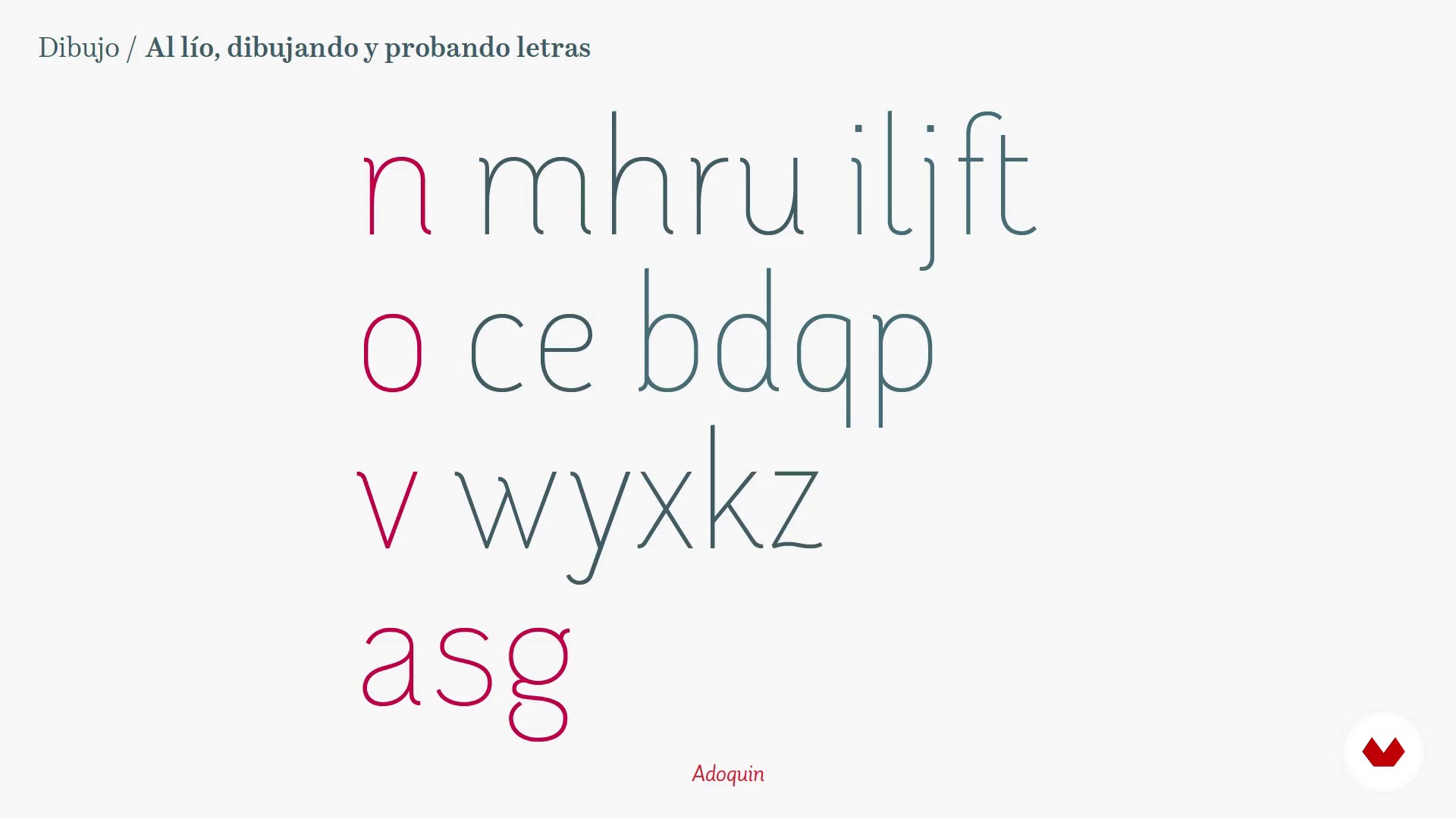
To the mess, drawing and testing letters 1
About the video: To the mess, drawing and testing letters 1
“We know how the letters are drawn, we know where to place them, we know how to reuse their forms, now we have to apply all that to create an alphabet taking advantage of the similarity between groups of letters to be sure. Prepare that will be long.”
In this video lesson Juanjo López addresses the topic: To the mess, drawing and testing letters 1, which is part of the Domestika online course: Design a Digital Font from A to Z. Learn to design a font from scratch with Glyphs, Illustrator, and OpenType functions.
“In this lesson. we will put into practice all that we have learned up until now within the unit. Our goal is to construct an alphabet by creating some letters based on existing ones and using components of certain letters to form others in the most straightforward manner. When I embark on creating a new typeface. it often stems from something I've drawn or an idea lingering in mind. Each time I pick up a pencil. i find myself sketching the same design. Eventually. i decide it's to transform it into a typeface. While I draw words. i focus on the essence and character of the letters. the lett...”